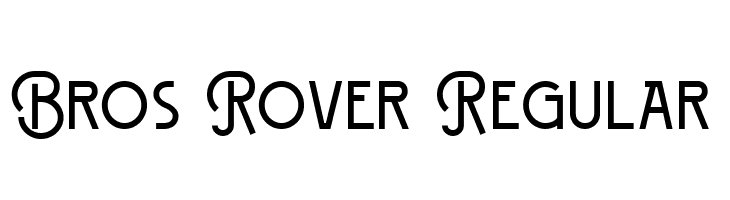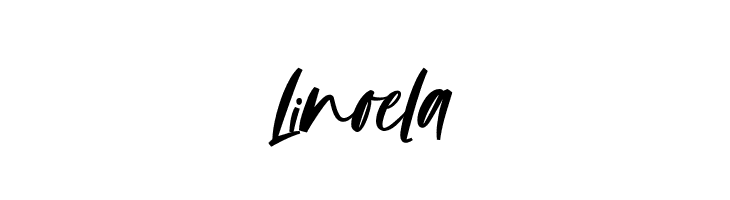
A bold, expressive handwritten font with fluid strokes and dynamic style.
A bold, rounded sans-serif font with a modern yet retro feel.
A graceful and elegant script font with flowing cursive strokes.
A bold, graffiti-inspired font with angular, dynamic forms.
A bold, brush-style font with a hand-drawn, artistic appearance.
A dynamic, handwritten script with fluid strokes and lively contrast.
An ornate and decorative font with elaborate swirls and flourishes.
A bold, graffiti-inspired font with angular, sharp edges and a decorative style.
A bold, hand-drawn font with an expressive and artistic style.
A decorative script font with flowing, interconnected letterforms and intricate swashes.